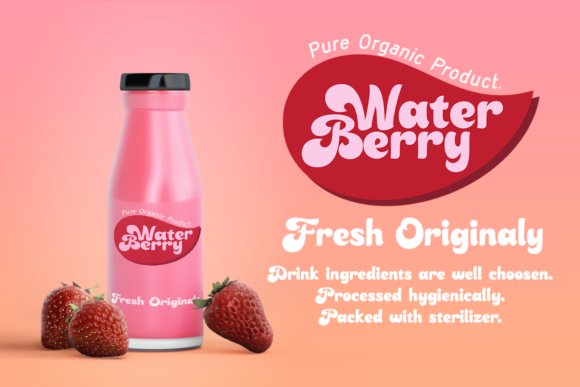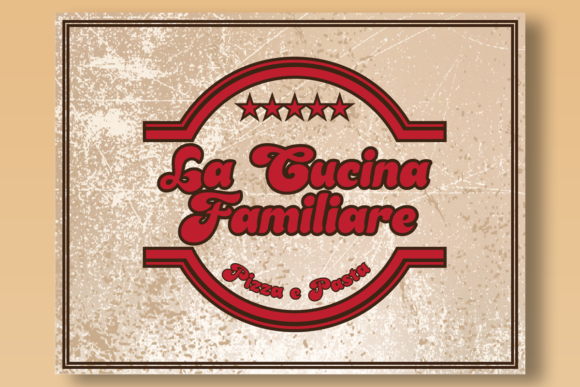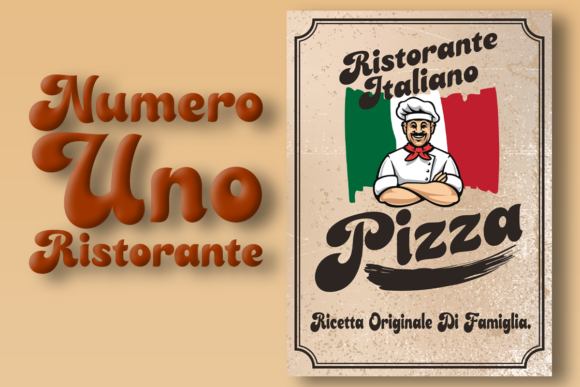
About Chocoladine Font
Chocoladine is an exquisite and bold handwritten font designed to add a touch of elegance and style to your headlines and logotype projects. With its strong and confident appearance, this font exudes a sense of sophistication and nostalgia, making it perfect for creating impactful designs.
The letters of Chocoladine are beautifully crafted with bold strokes and intricate details. Each character has a unique charm and personality, adding depth and character to your text. The thick lines and graceful curves give the font a distinct and memorable look, making it stand out in any design.
The font’s bold and dynamic nature makes it ideal for creating attention-grabbing headlines and logotypes. Whether you’re designing a magazine cover, a branding project, or a stylish logo, Chocoladine brings a touch of class and vintage charm to your designs. Its nostalgic character adds a sense of timelessness, making it suitable for a wide range of themes and industries.
Chocoladine’s versatility extends beyond headlines and logotypes. It can be used in various design projects, such as packaging, invitations, posters, and more. Its bold and confident appearance adds visual impact, while the handwritten style adds a personal and authentic touch. Whether you’re creating a product label, an event poster, or a stylish invitation, Chocoladine elevates your designs to a new level of sophistication.
When using Chocoladine, you have the freedom to play with different styles and effects. Experiment with letter spacing, size, and color to create a unique and customized look. The font’s bold nature allows it to work well in both large and small sizes, ensuring legibility and impact in any context.
Chocoladine is designed to be a versatile and captivating font that adds a touch of nostalgia and character to your designs. Its bold and confident appearance makes it a great choice for headlines and logotypes, while its intricate details and graceful curves make it stand out in various design projects. Embrace the elegance and style of Chocoladine and let it transform your designs into works of art.